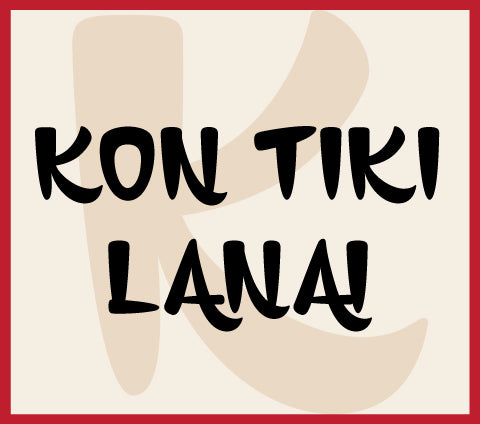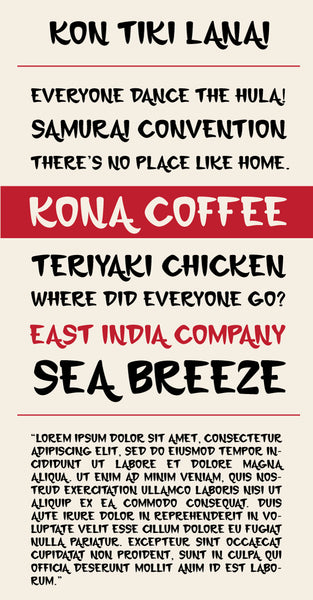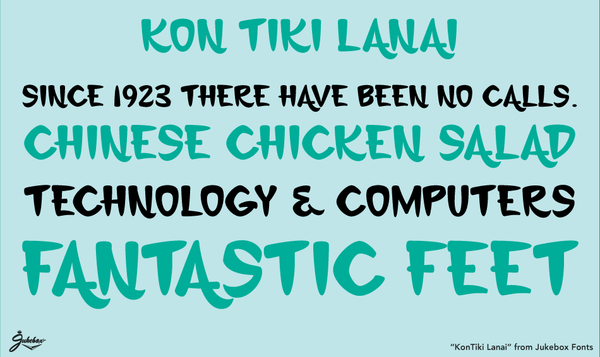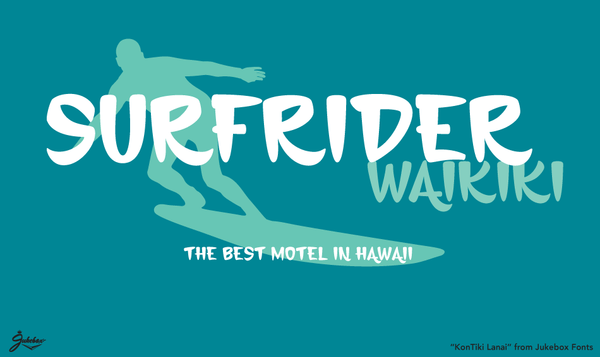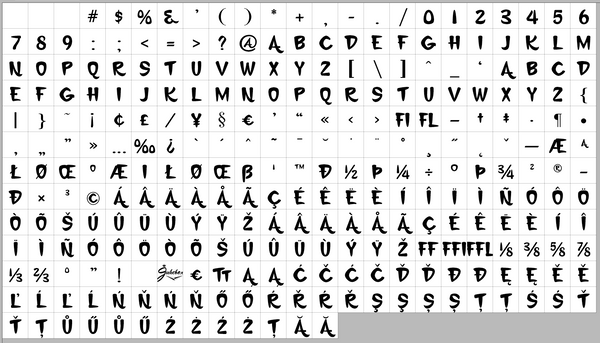
Kon Tiki Lanai
Kon Tiki Lanai is a retro "South Pacific" style font that is part of the KonTiki Collection: a series of seven related fonts I designed to celebrate the retro mid-century style of Hawaiian kitsch. Kon Tiki Lanai has that brushy look to it that seems to suggest it was lettered with flair and flourish...Perfect for any project or design that needs both a Hawaiian and slightly Asian feel to it.